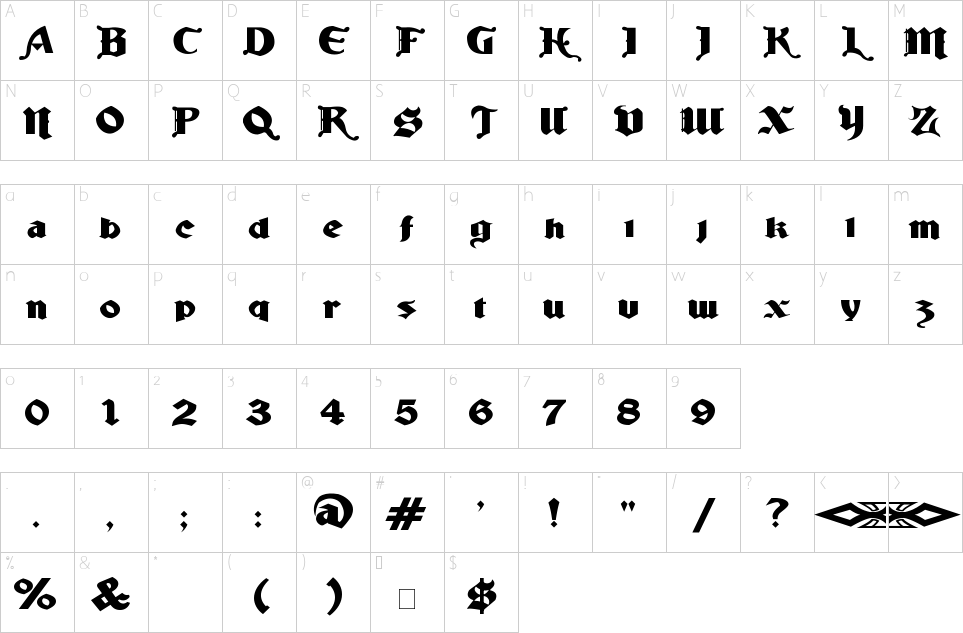
Ludlow Strong Ale Font
TrueTypeFont: Ludlow Strong Ale
Sharkshock Productions
Hey there everyone. Here we have somewhat of a marriage between styles. Cool craft beer or Olde English? It even works in a seafood restaurant environment. My original project was
entitled King James and it was mistakedly released. This version includes kerning and a bit more punctuation. This, like some of my other fonts, is decorative and not meant for full
Nome designer: Sharkshock